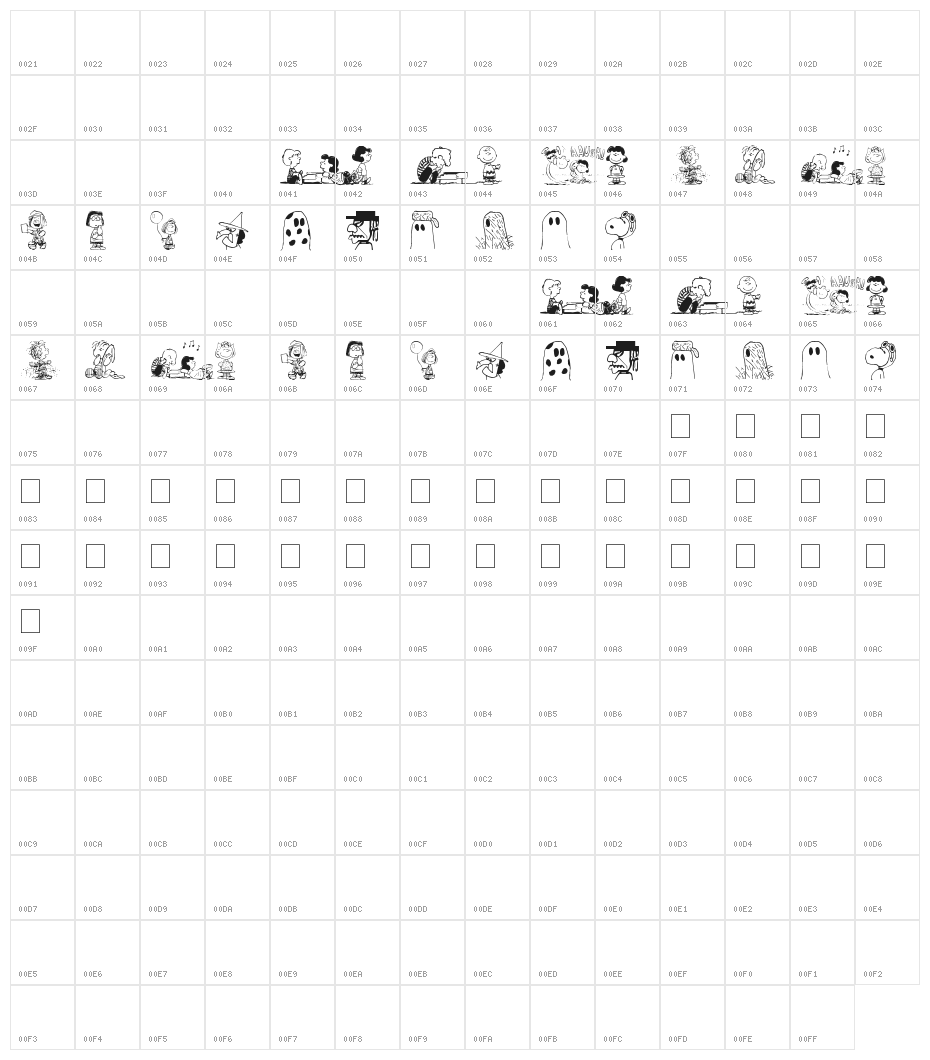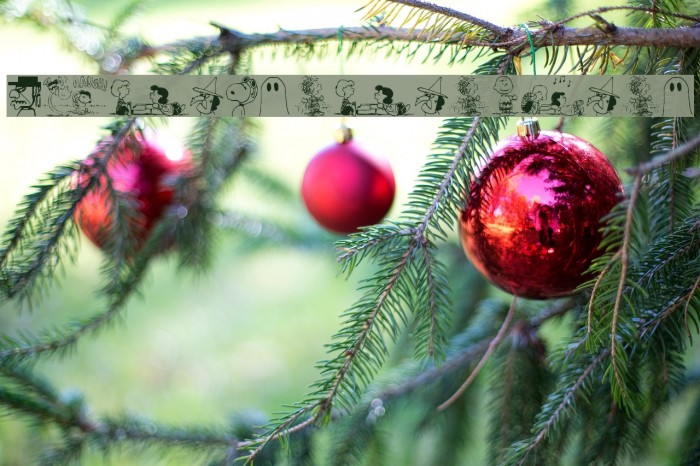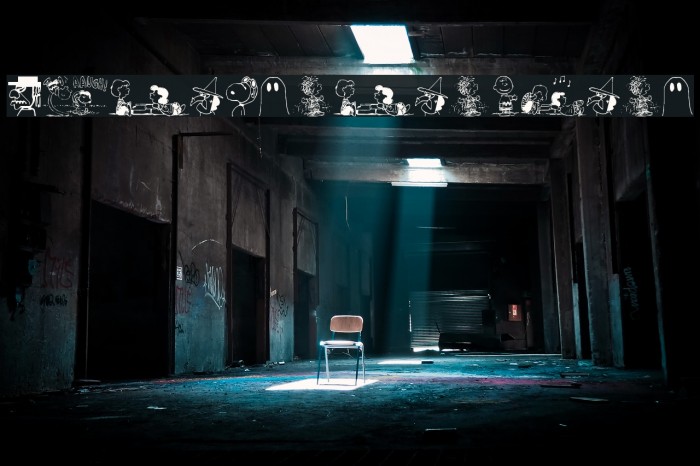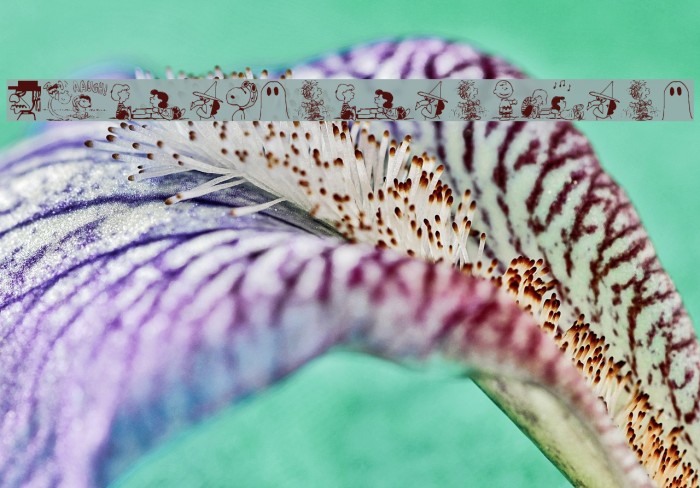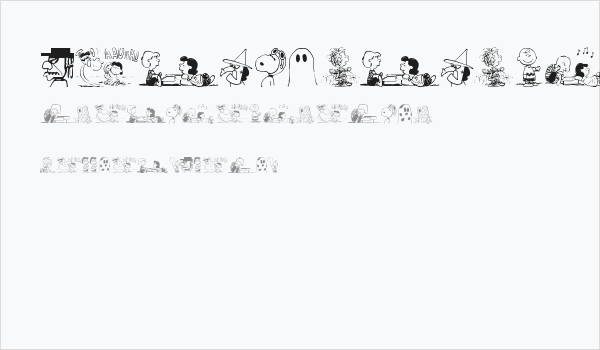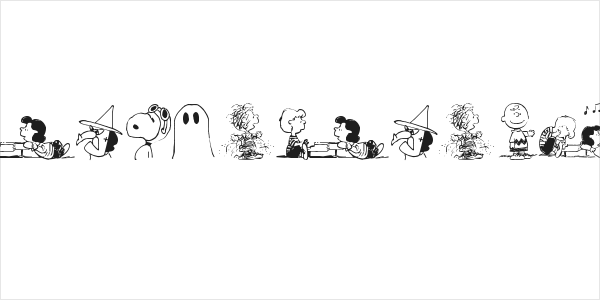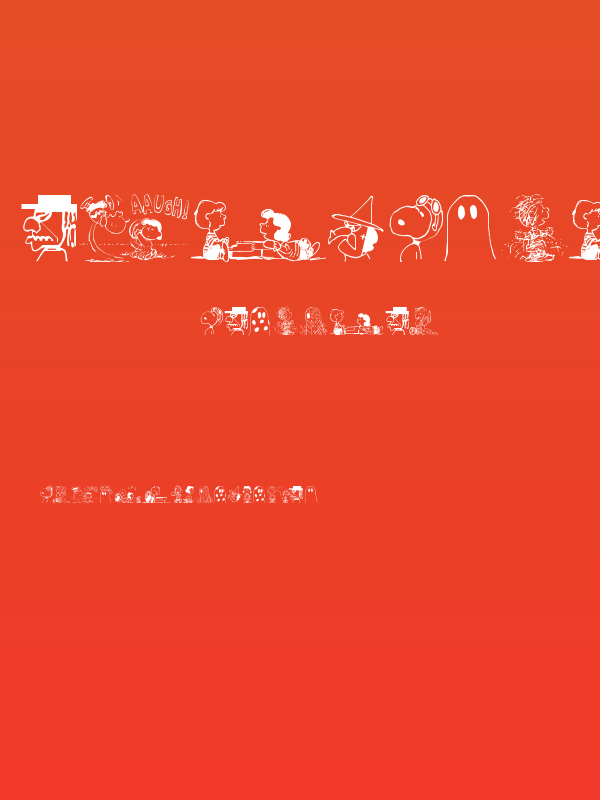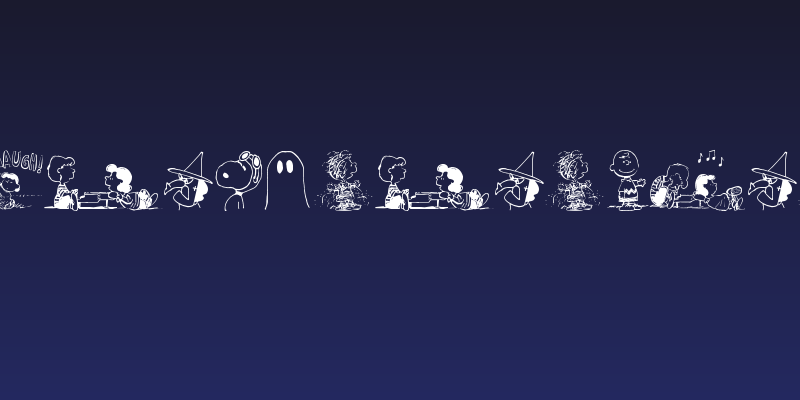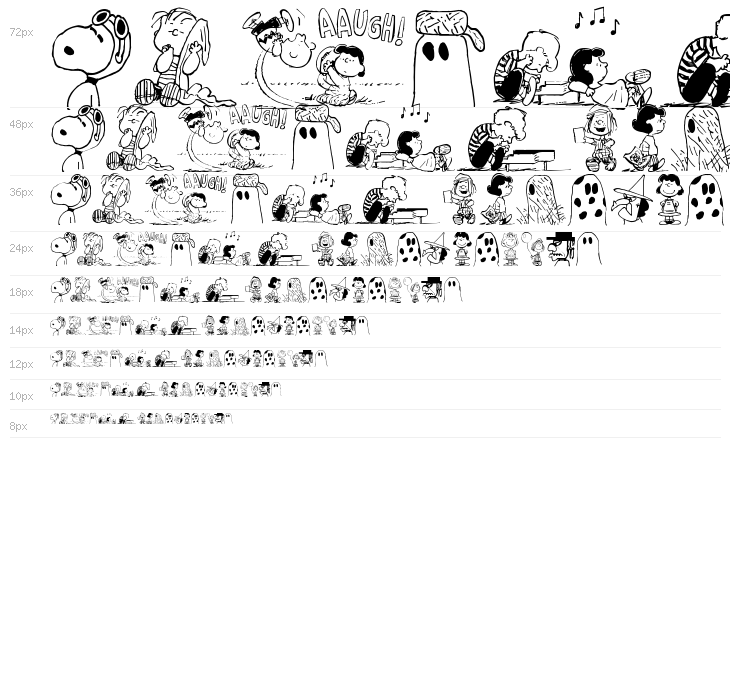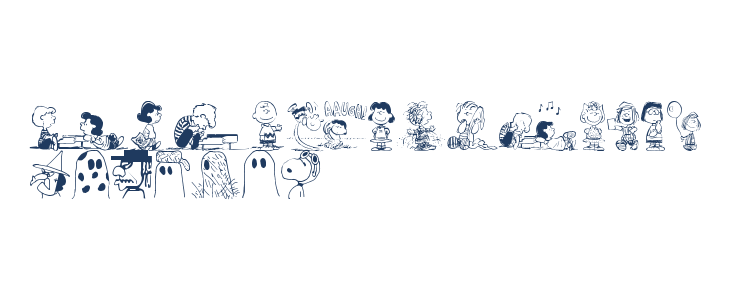
Peanuts Gang Dings Font
Peanuts Gang Dings Description
This is not a traditional font but rather a collection of iconic character illustrations from a beloved comic series. Each character is depicted in a playful and expressive manner, capturing their unique personalities and traits. The illustrations are detailed and convey a sense of nostalgia and charm, reminiscent of classic comic strips. The characters are arranged in a sequence, showcasing various poses and expressions, which adds a dynamic and lively feel to the collection. This set is perfect for fans of the series who wish to incorporate these familiar faces into creative projects.
| Overall Style | Nostalgic, Playful |
| Use Case | Decorative elements, Themed designs |
| Proposed Projects | Ideal for themed invitations, comic-inspired designs, fan merchandise, or nostalgic art projects. |